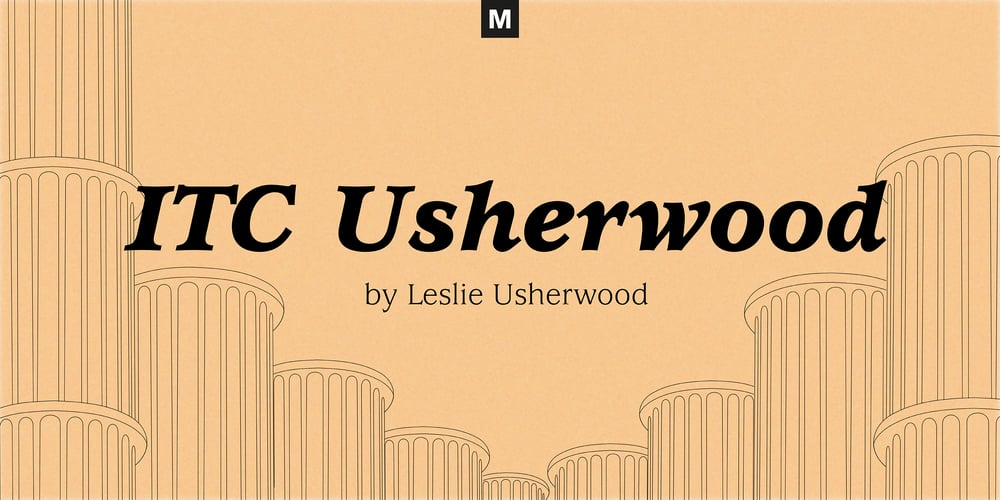
ITC Usherwood Font Family was designed by Leslie Usherwood and published by ITC. ITC Usherwood contains 8 styles and family package options. ITC Usherwood font was designed by Leslie Usherwood, an informal and personable font which bridges the gap between modernity and tradition. There are hints of Bauer, Goudy and Augustea in this font, but ITC Usherwood remains both classic and contemporary, beautiful in form and functional in design.